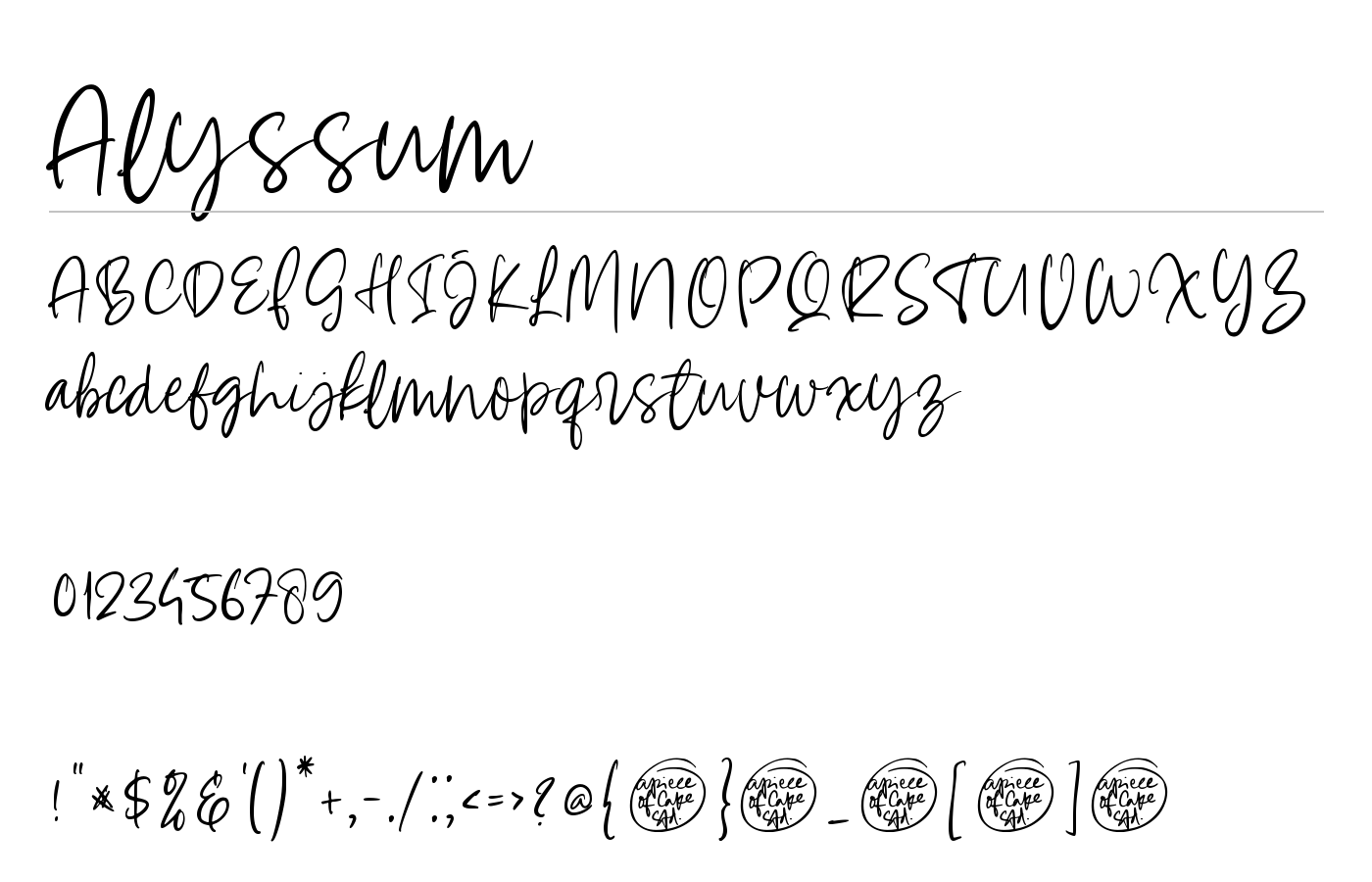
Alyssum is a delicate, modern script font with a casual, handwritten style that feels both personal and stylish. Its slender, slightly irregular letterforms give it a friendly and approachable character, making it perfect for creative branding, invitations, and editorial projects that want to convey warmth and elegance with a contemporary touch.
Alyssum Font
About Alyssum Font